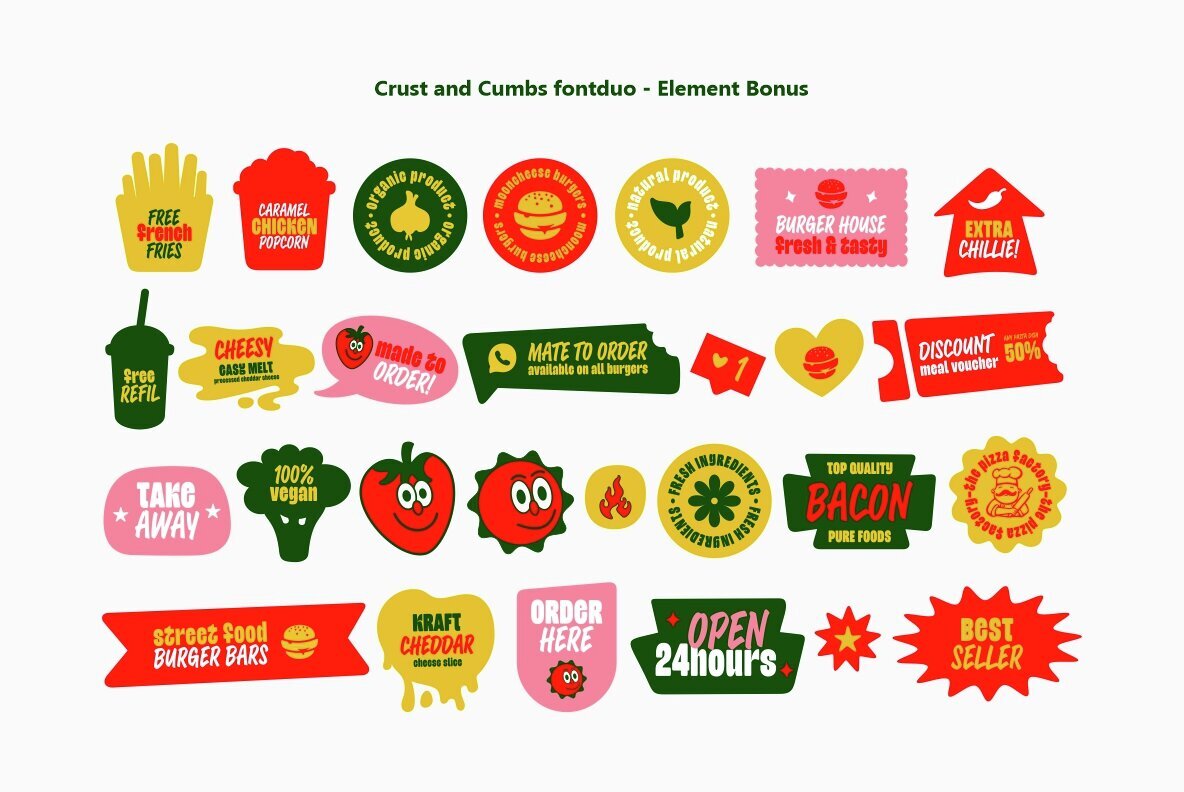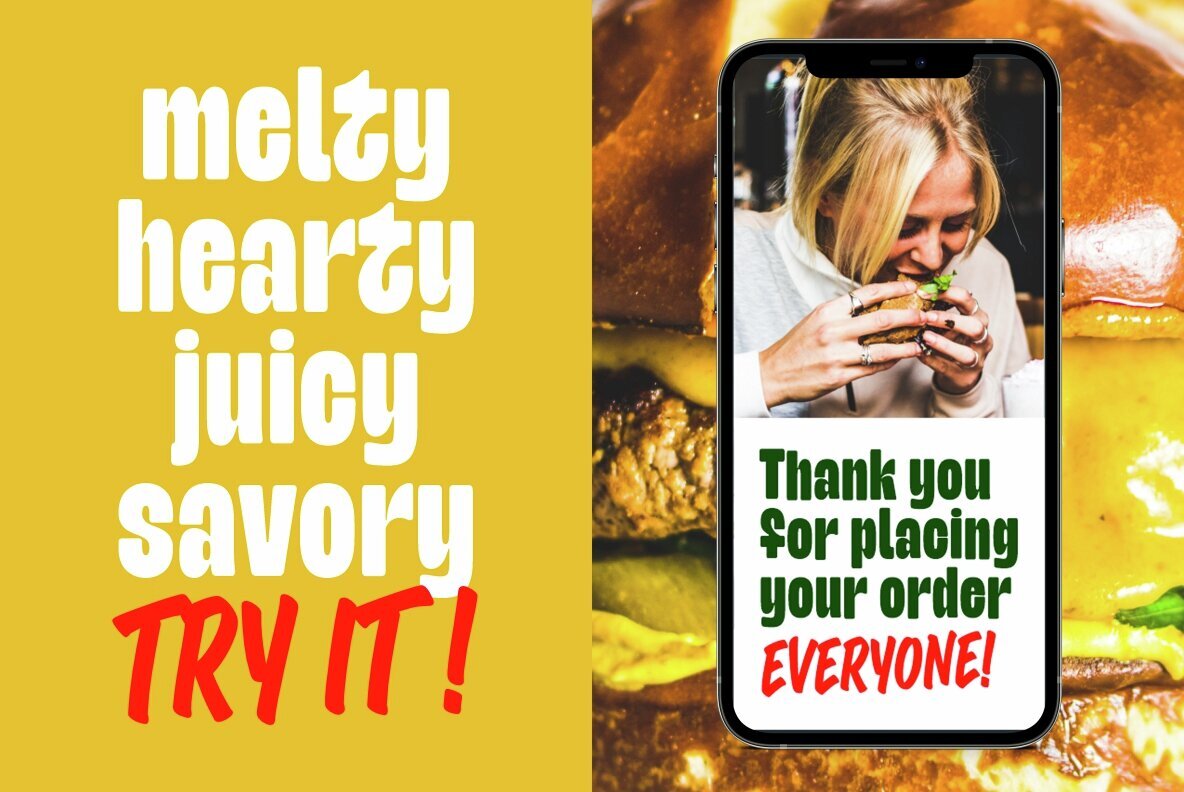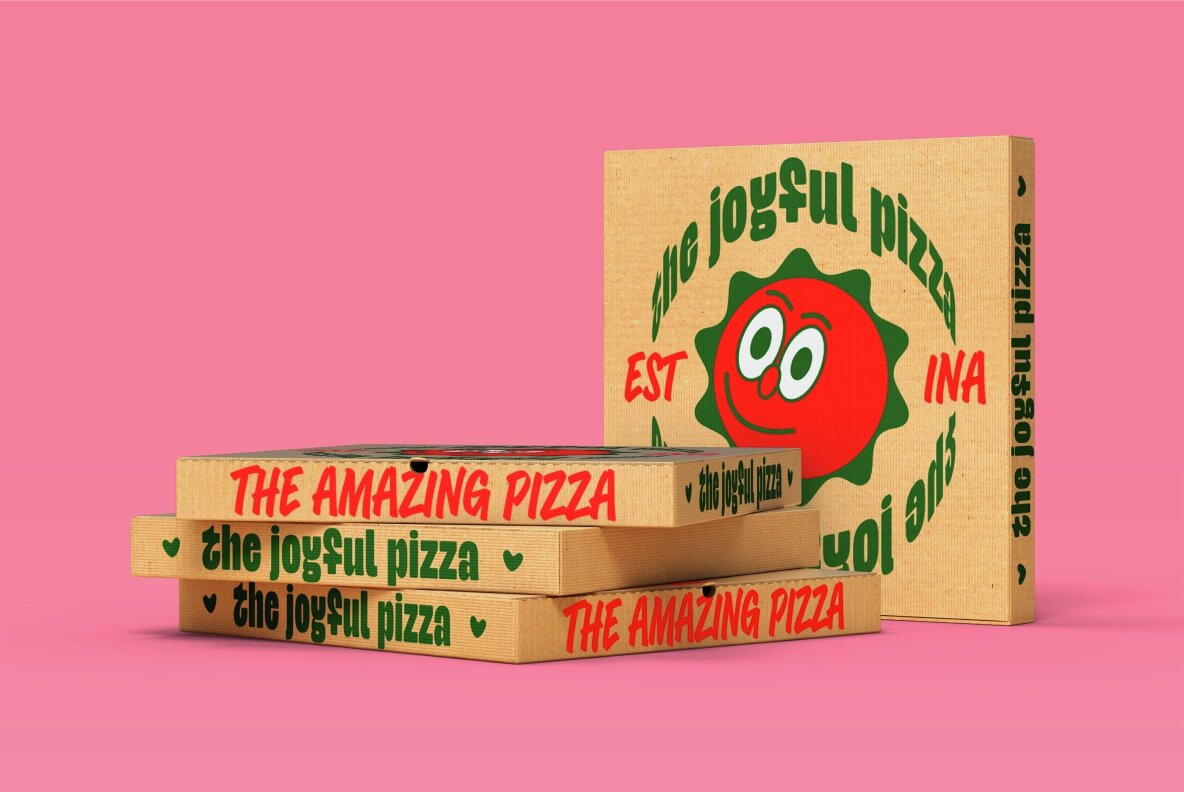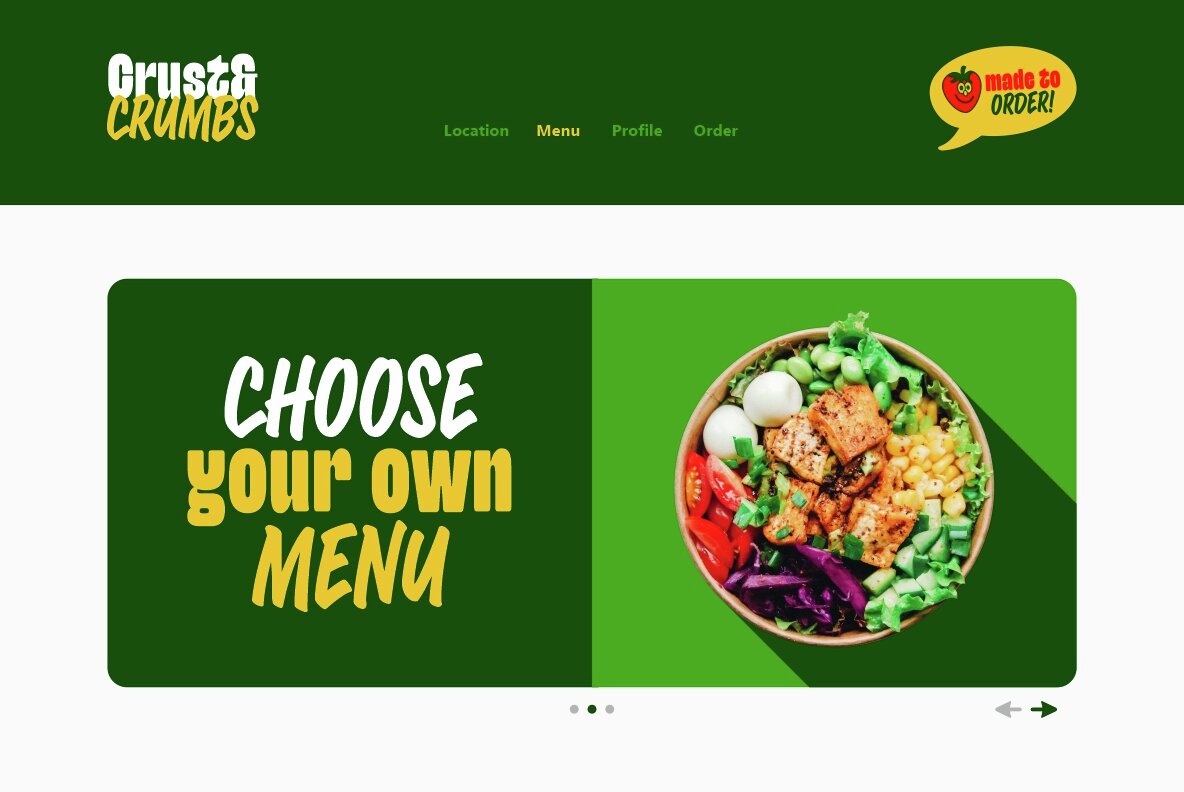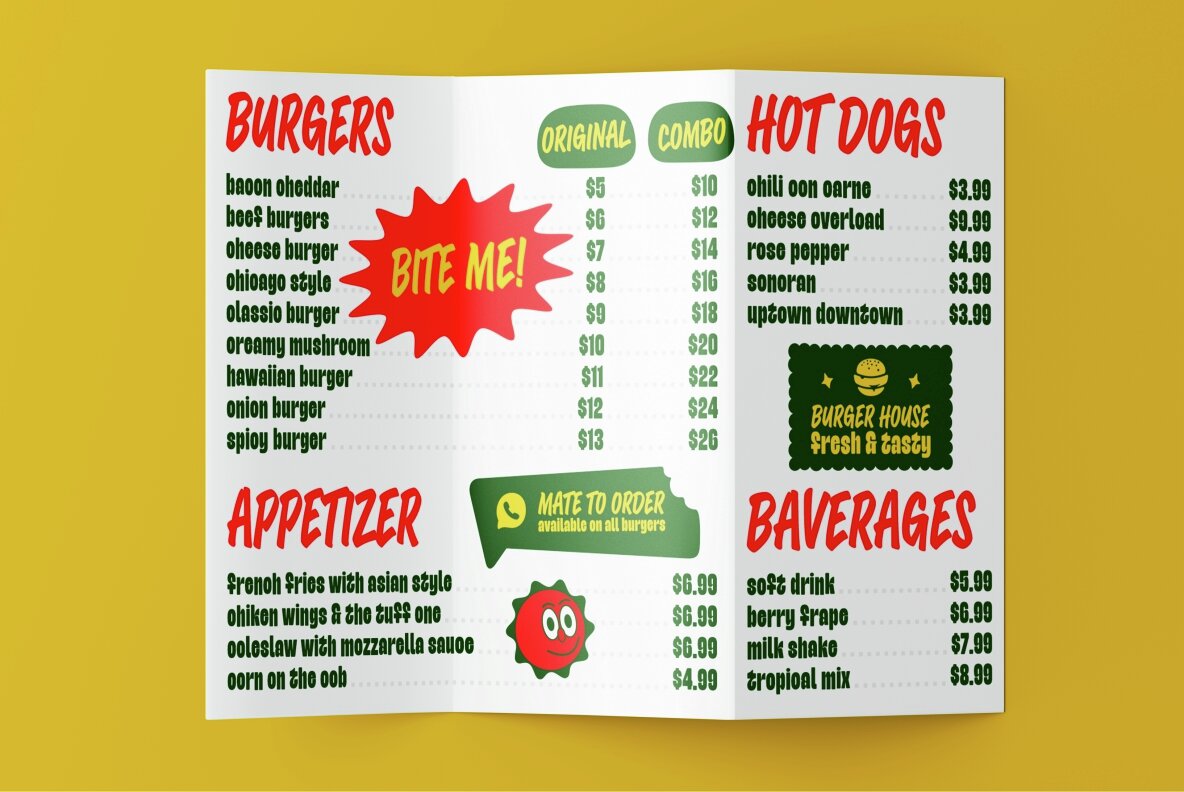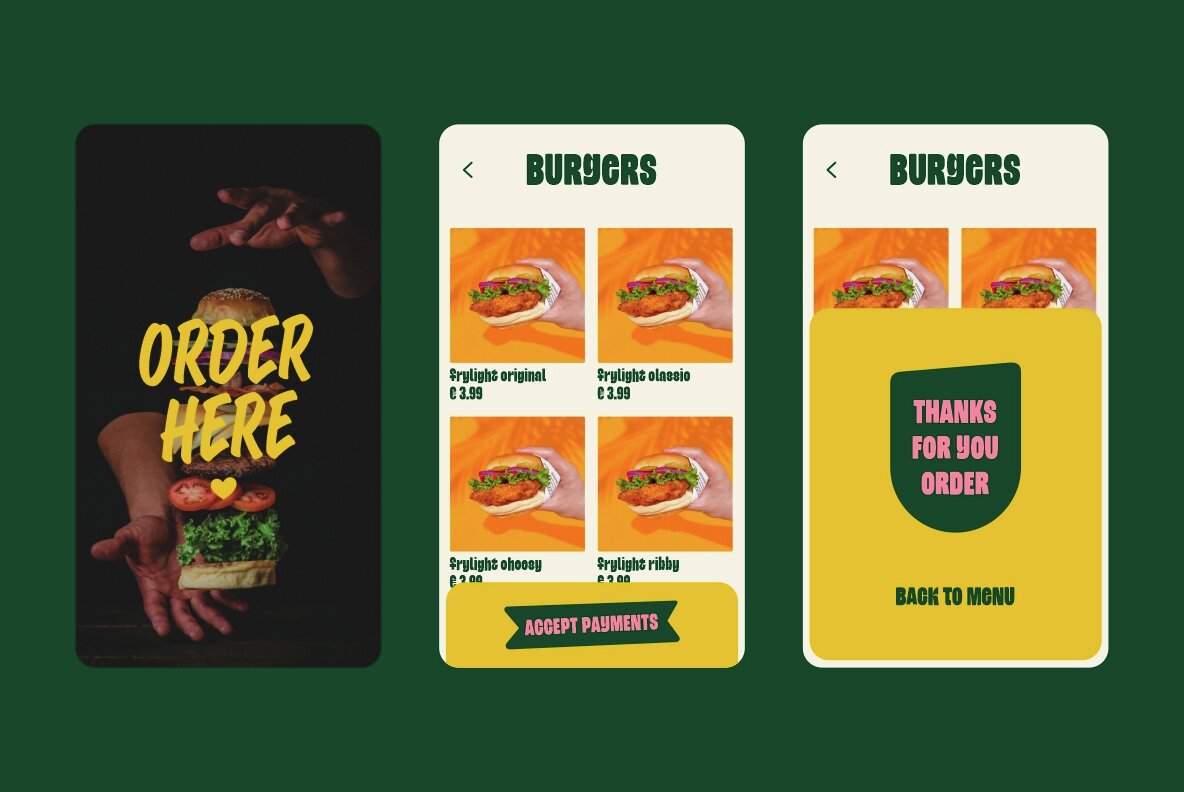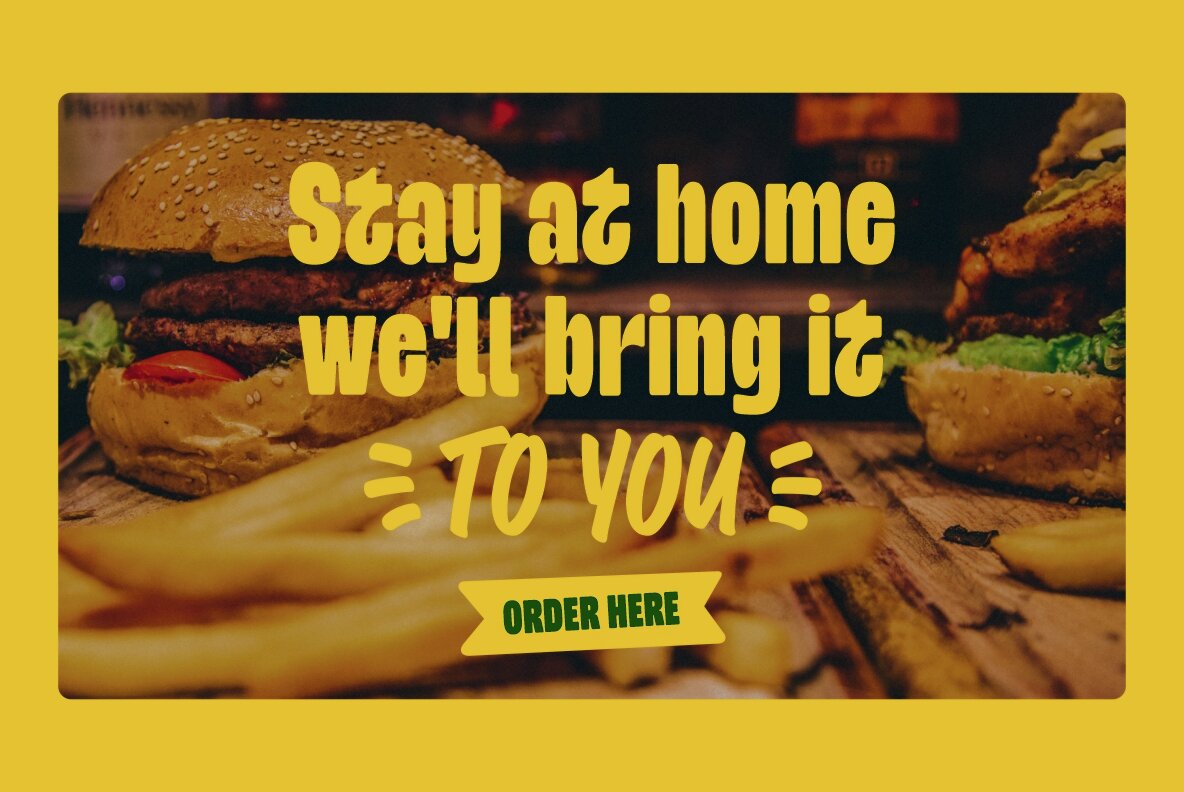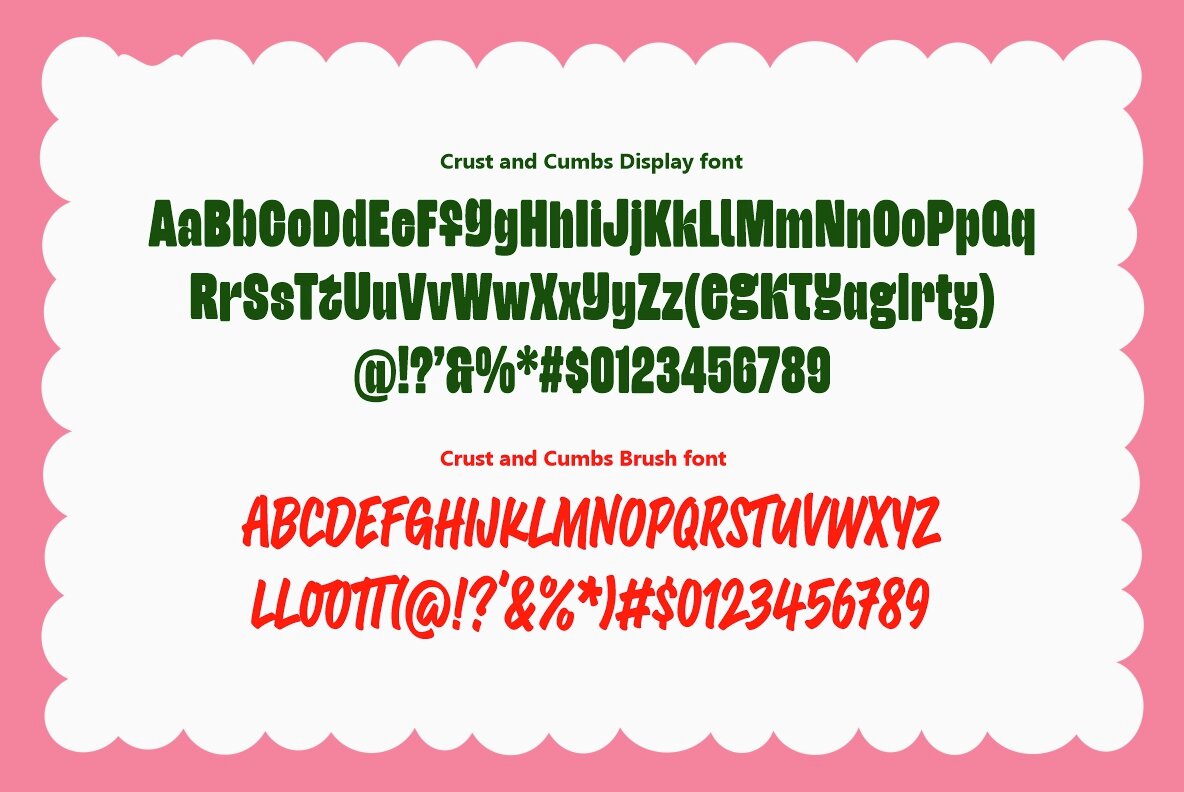
Crust and Crumbs Font
Discover the perfect pairing for your culinary creations with the Crust and Crumbs Foodie Font Duo, featuring a harmonious blend of rounded sans-serif and expressive brush fonts. Whether you're a food blogger, restaurant owner, or a passionate home cook, this font duo is designed to add a delectable touch to your food-related designs. Why Choose Our Foodie Font Duo?